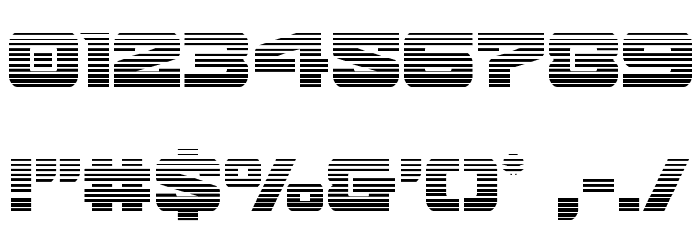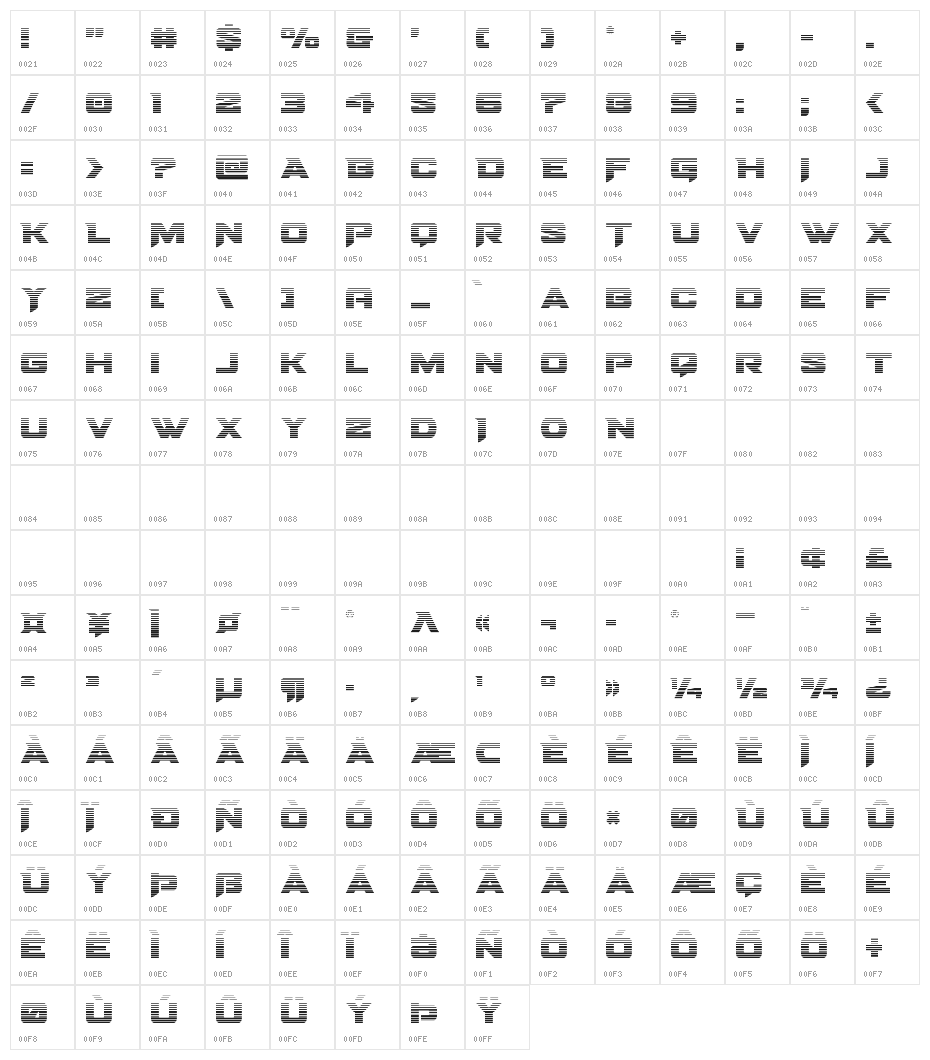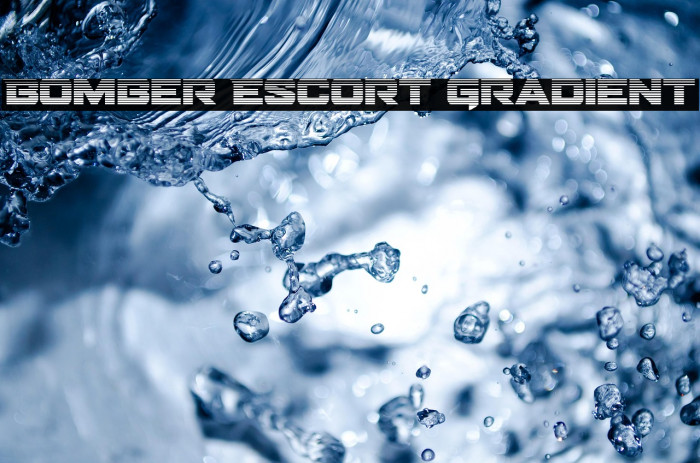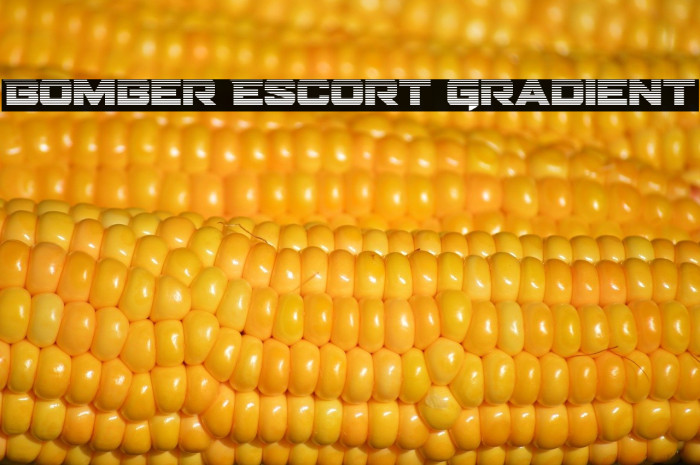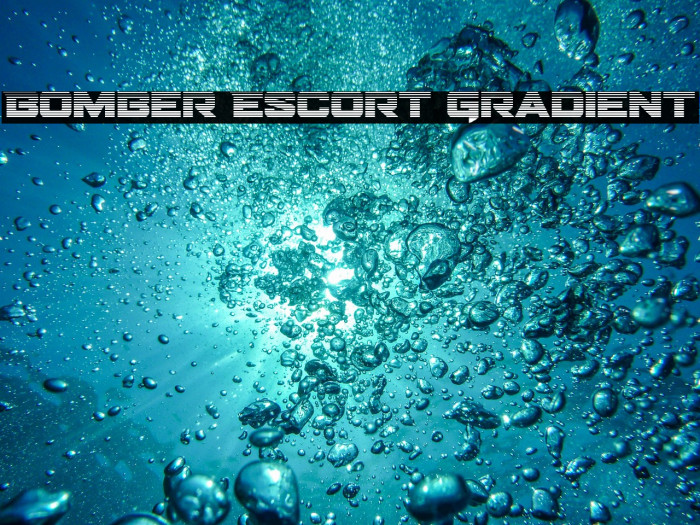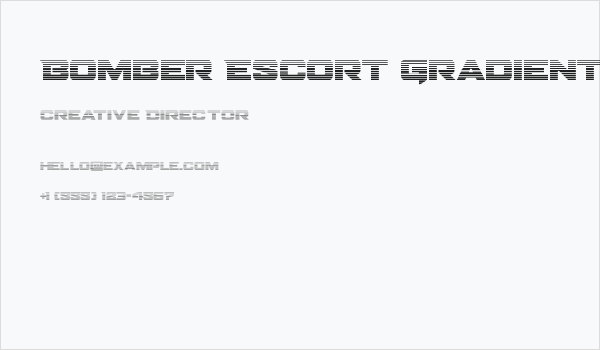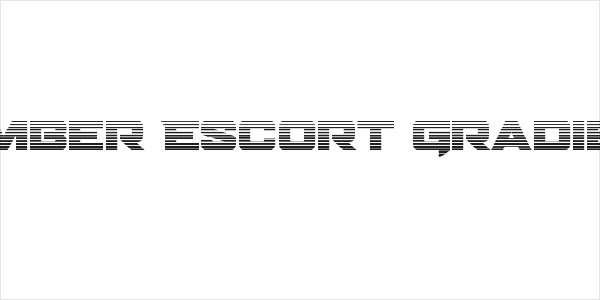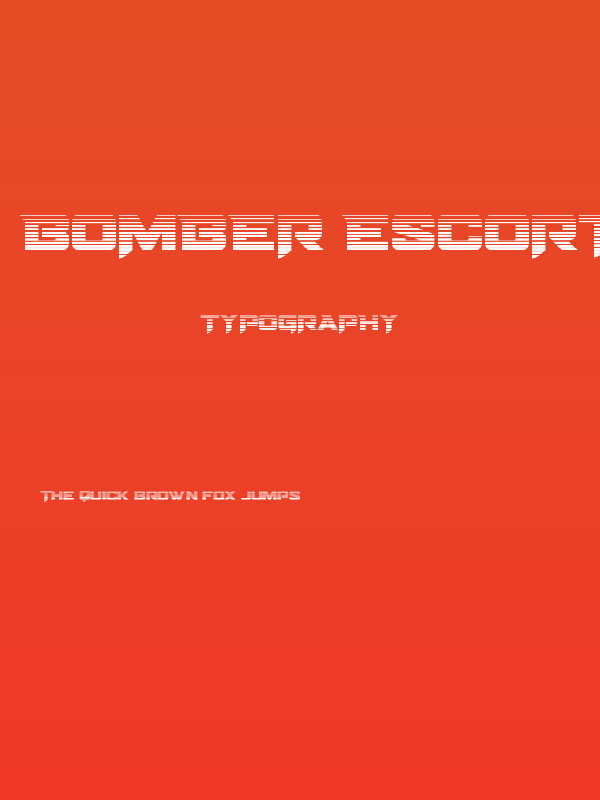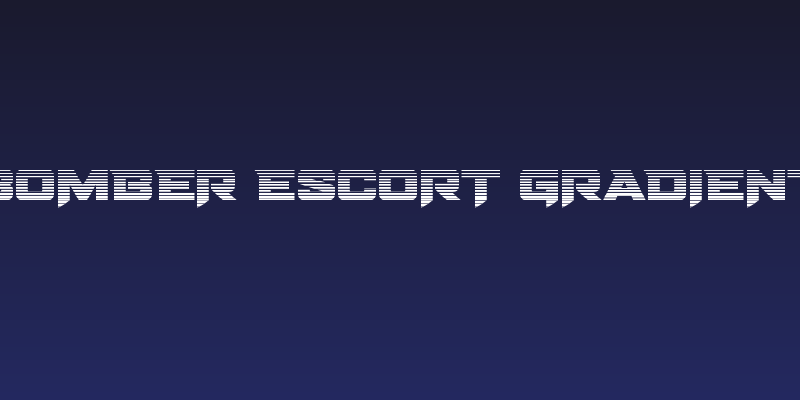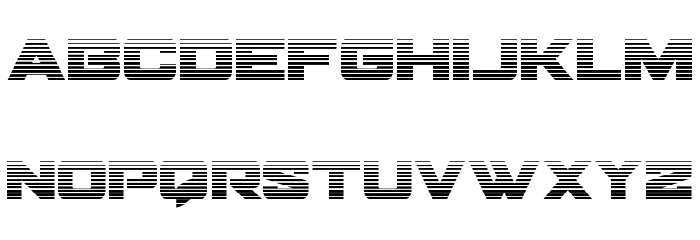
Bomber Escort Gradient Font
Bomber Escort Gradient Description
This font features a bold, futuristic design with a unique striped pattern running horizontally across each character. The uppercase letters are angular and geometric, giving a sense of movement and speed. The numbers and special characters maintain this dynamic style, making them stand out with their bold presence. The font's distinct gradient-like effect is achieved through the use of parallel lines, creating a sense of depth and dimension. This design is ideal for projects that require a modern, tech-inspired aesthetic.
| Proposed Projects | Ideal for tech branding, video game titles, futuristic posters, and sci-fi themed projects. |